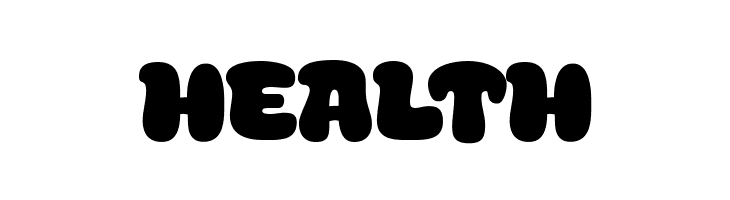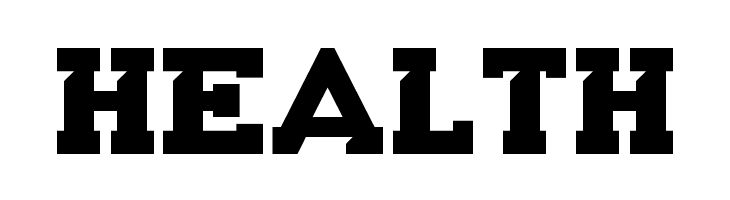
• Make No Sense
A bold, brush-style font with an energetic and artistic flair.
• Mandalaz Sensei Alternate Demo
A dynamic and expressive handwritten font with fluid strokes and a modern style.
• Mandalaz Sensei Demo Version
A lively handwritten font with fluid, slightly slanted strokes.
• Most Sense Demo
An ornate and elegant script font with flowing, interconnected letterforms.
• NatalisNonsense
• NCAA Baylor Bears
• Newsense
A geometric, layered outline font with a modern, futuristic style.
• NonSense
• Nonsense Filled Regular
A bold, geometric font with a three-dimensional, outlined style.
• Nonsense Regular
A bold, three-dimensional font with a strong, impactful presence.